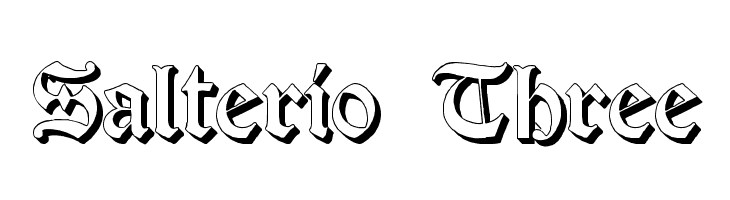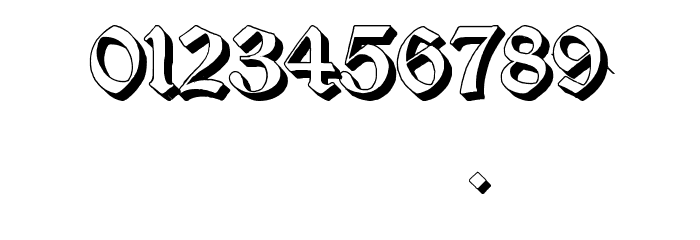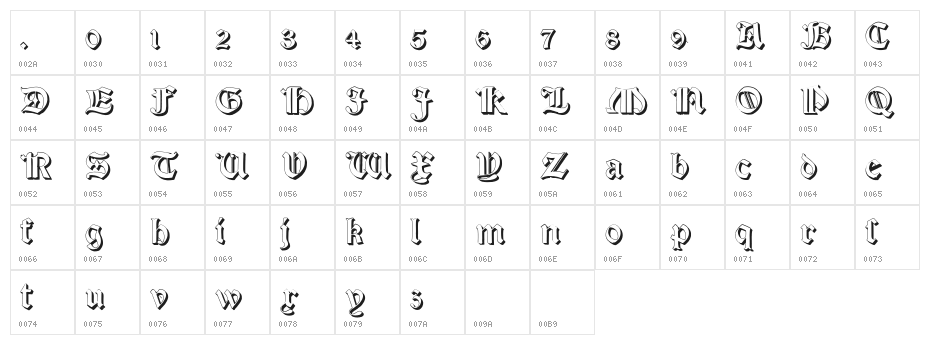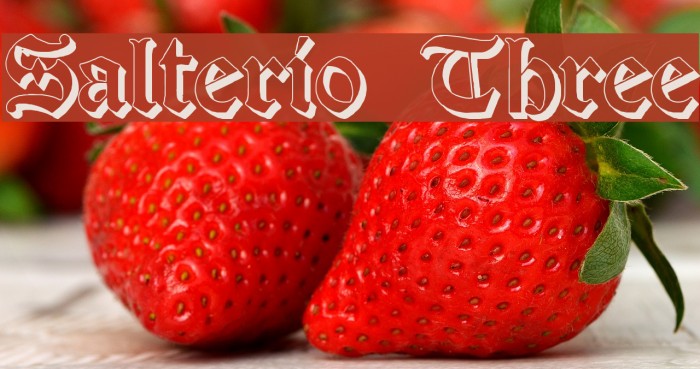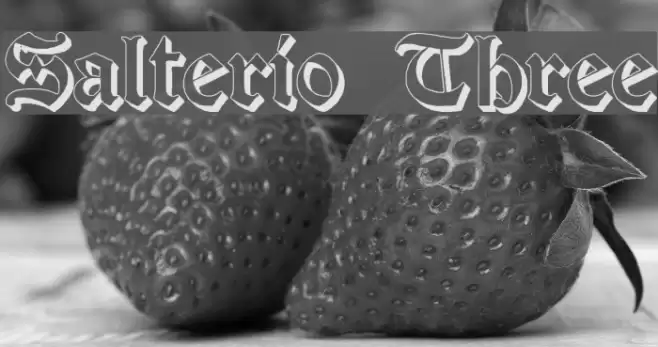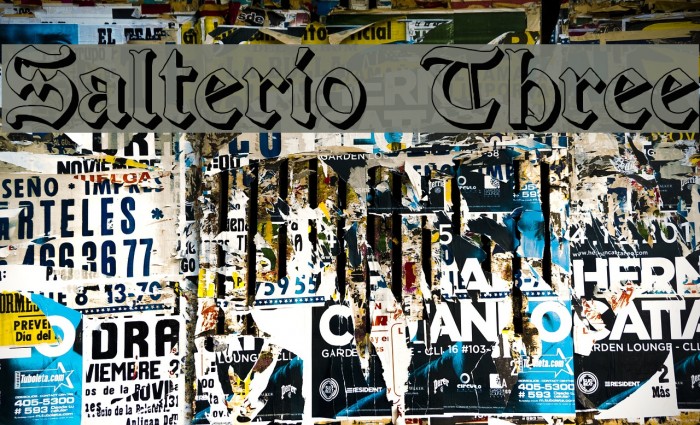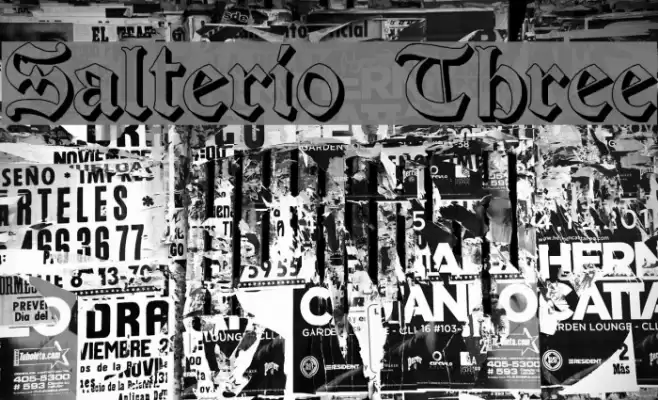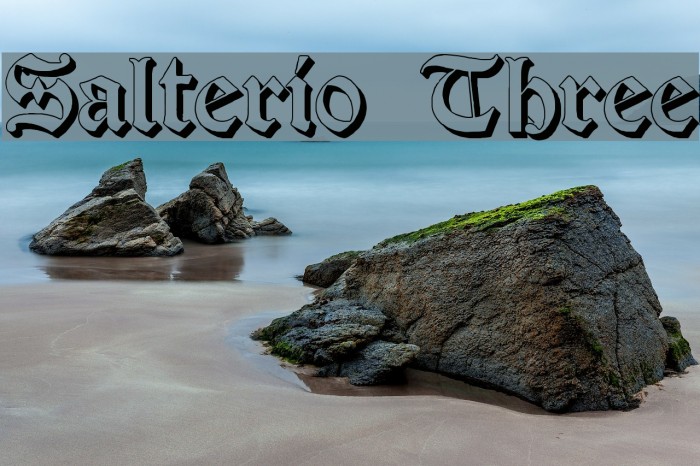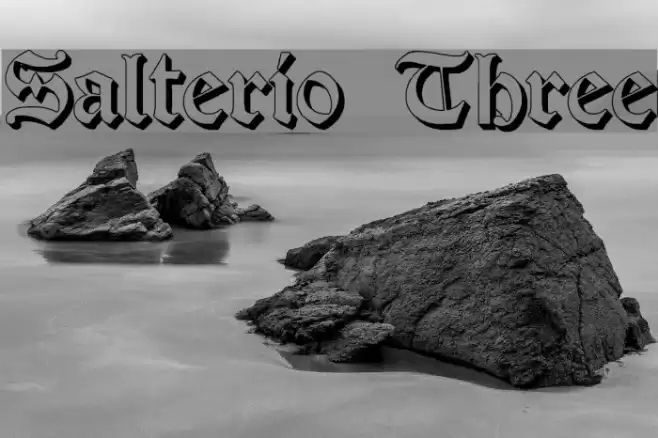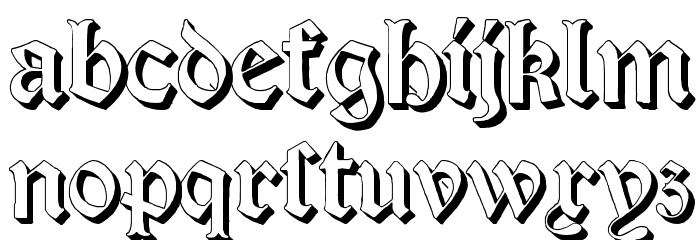
Salterio Three Font
Salterio Three Description
This font features a classic blackletter style, characterized by its intricate and ornate design. The letters are bold and angular, with sharp edges and dramatic flourishes that evoke a sense of historical elegance. The uppercase letters are particularly elaborate, with additional embellishments that enhance their decorative appeal. The lowercase letters maintain the same stylistic elements but are slightly more subdued, providing a balanced contrast. The numerals and special characters are consistent with the overall aesthetic, ensuring a cohesive look across all elements. This font is ideal for projects that require a touch of vintage sophistication and a nod to traditional typography.